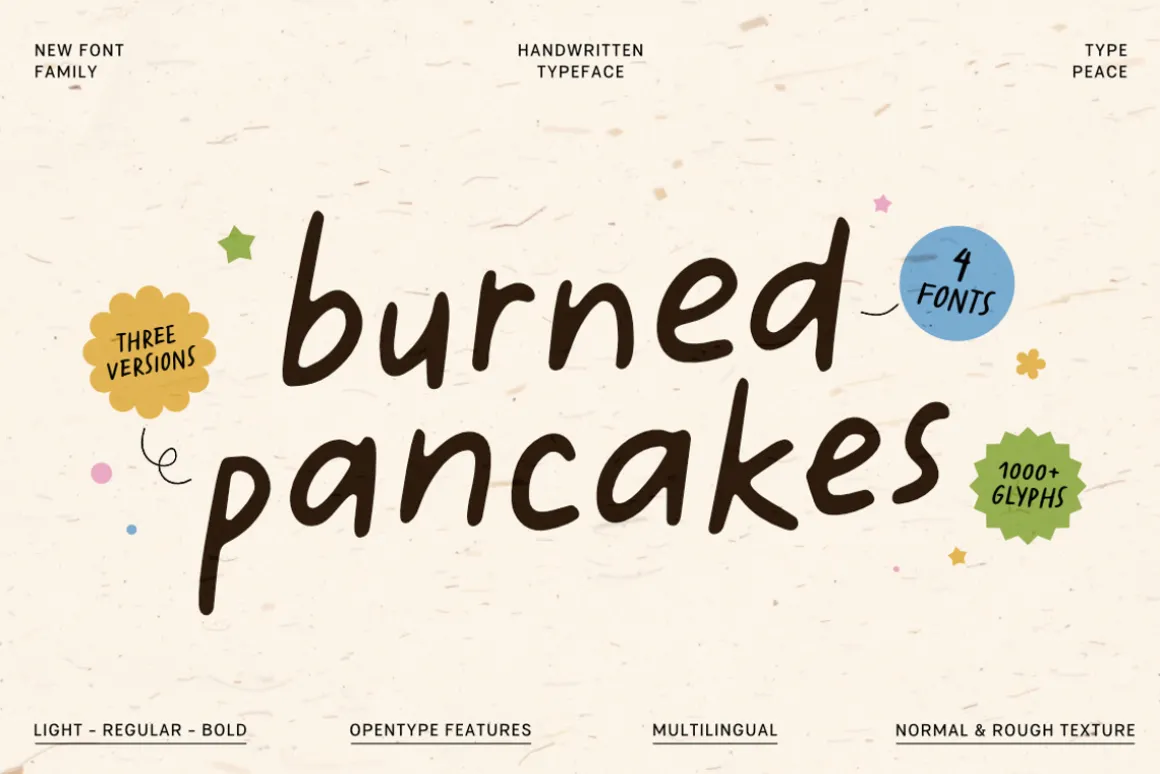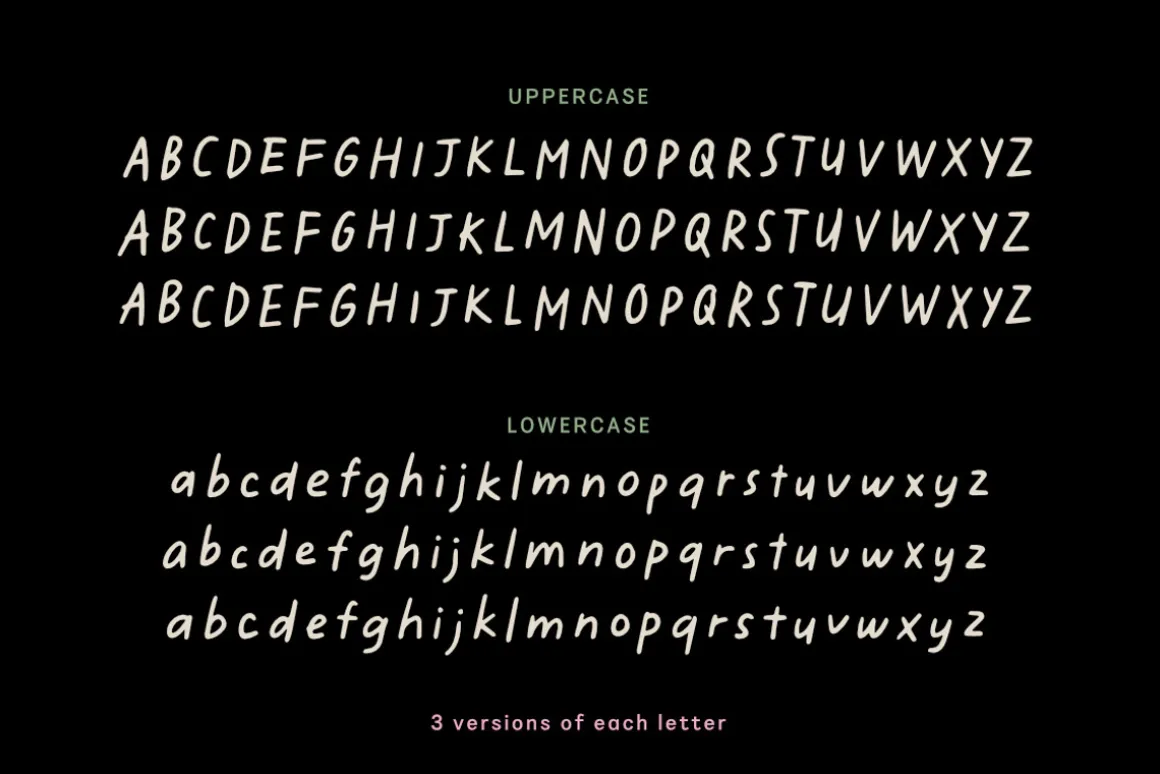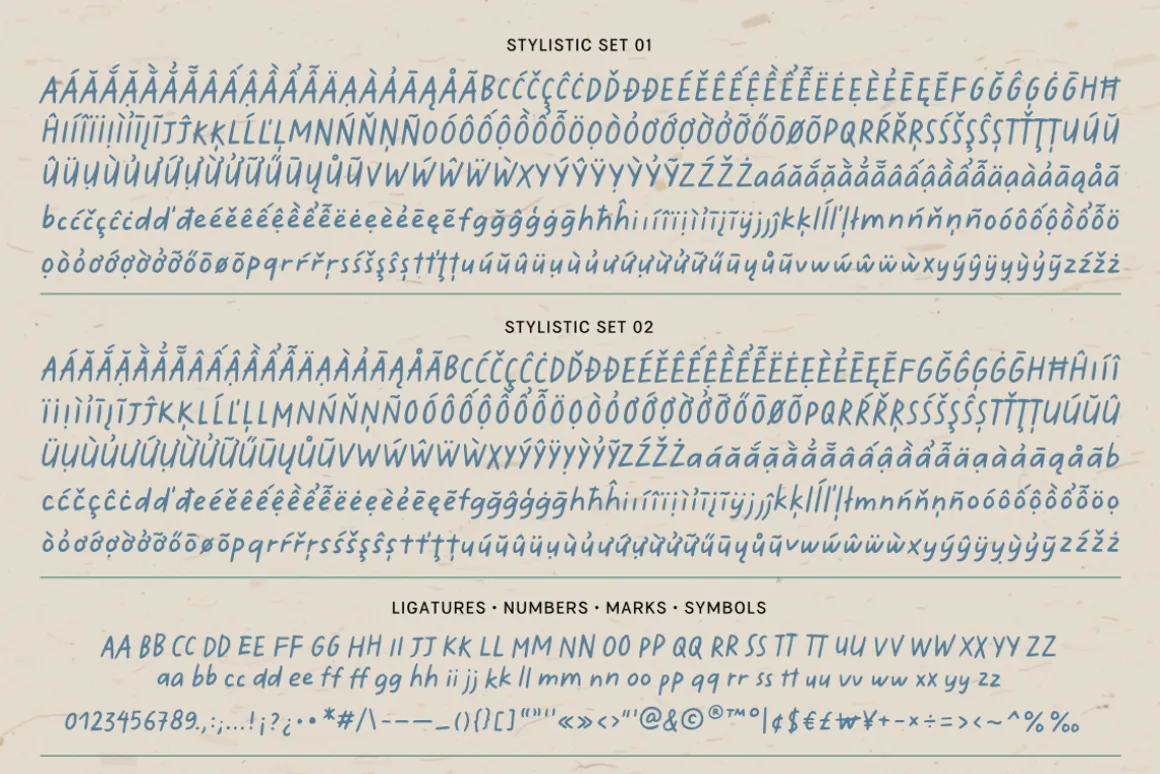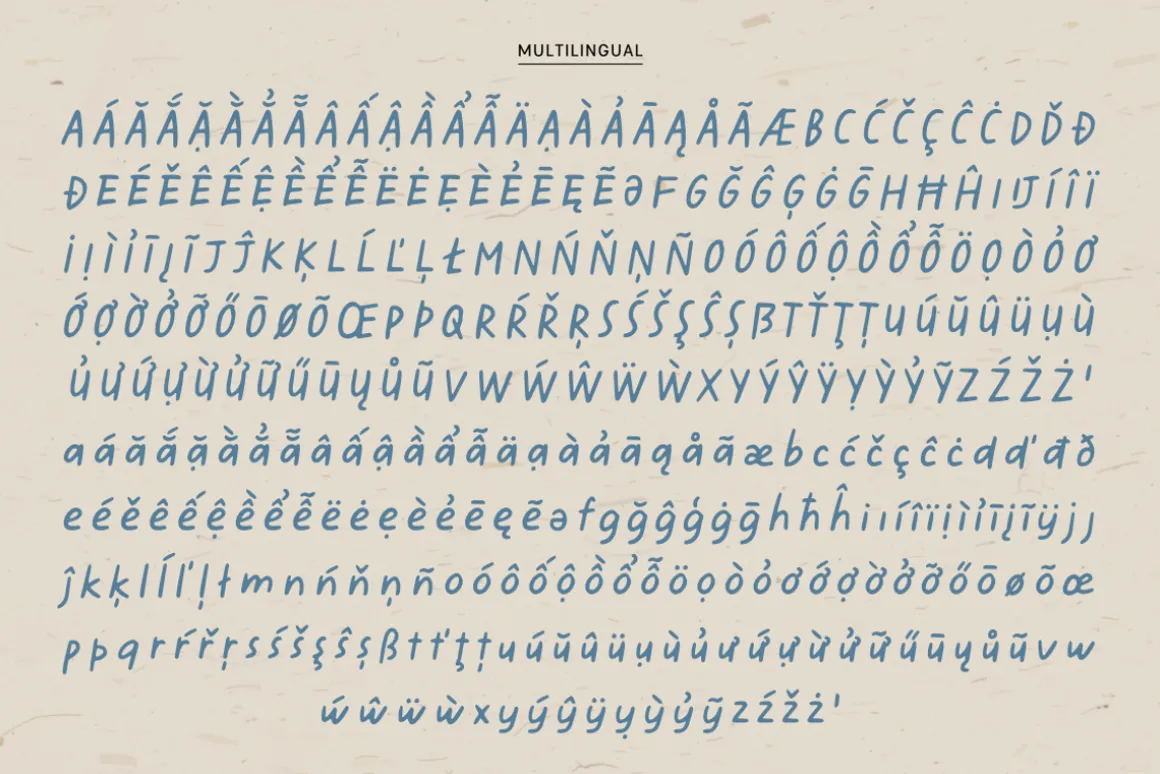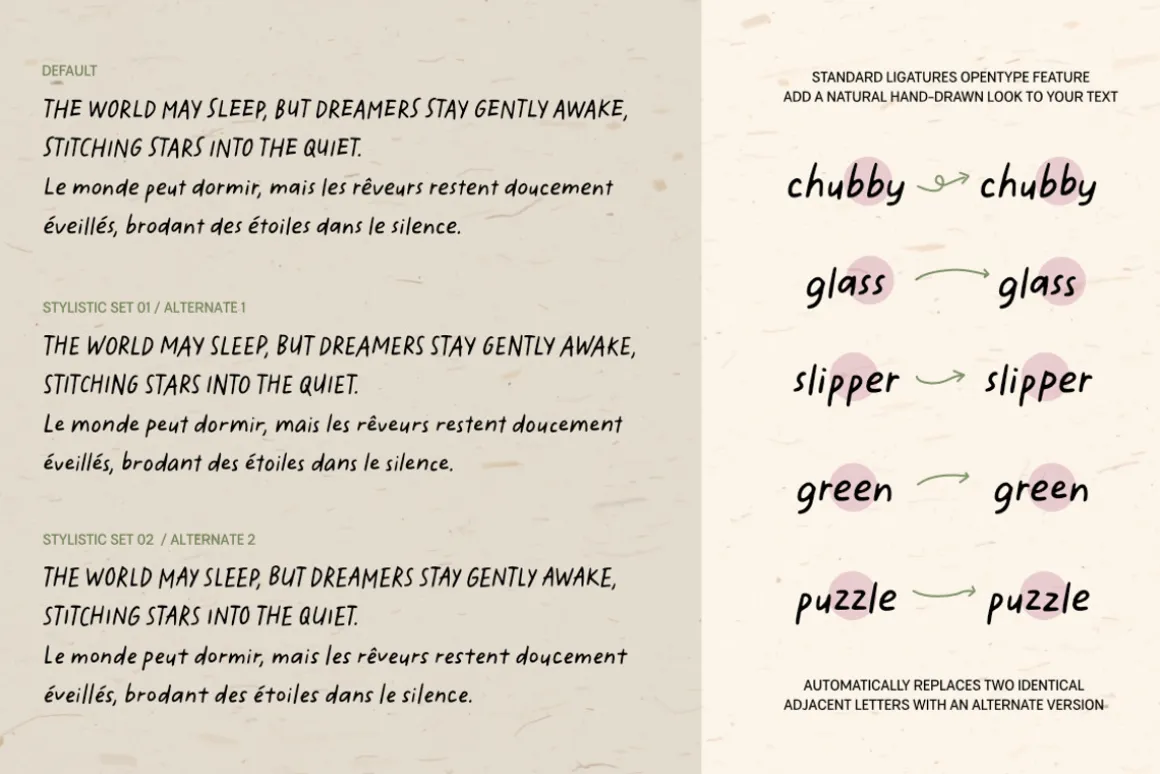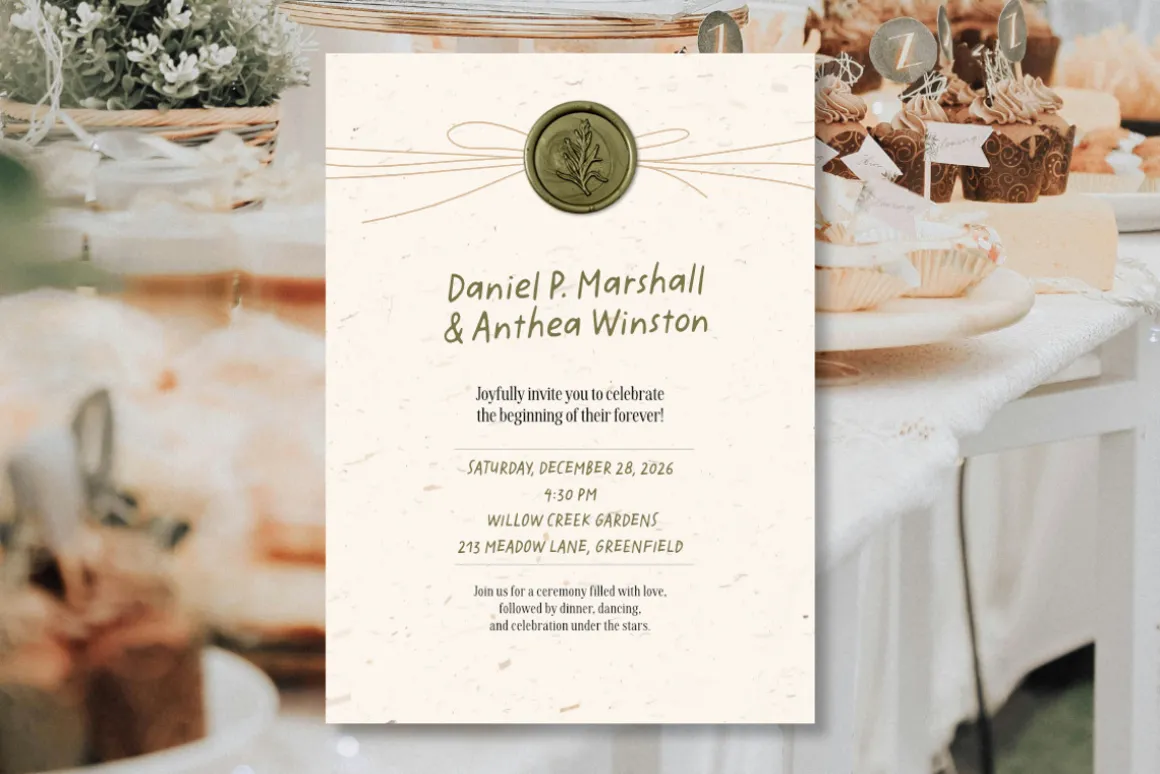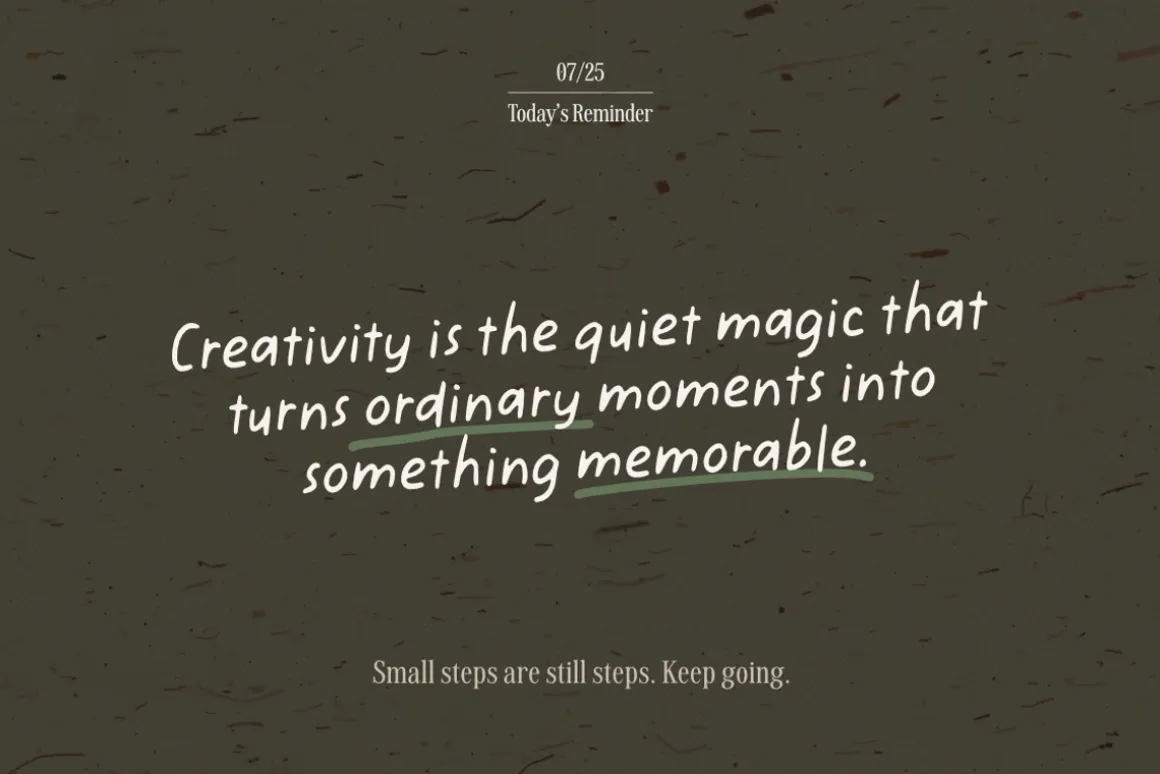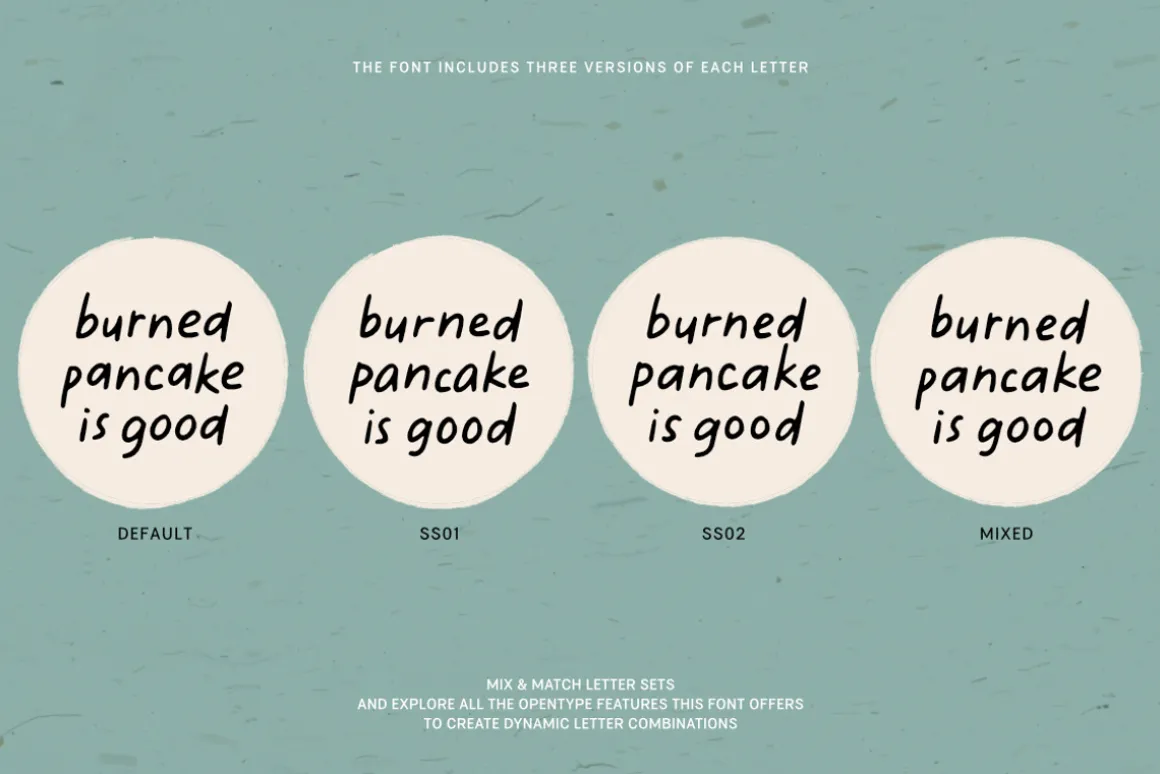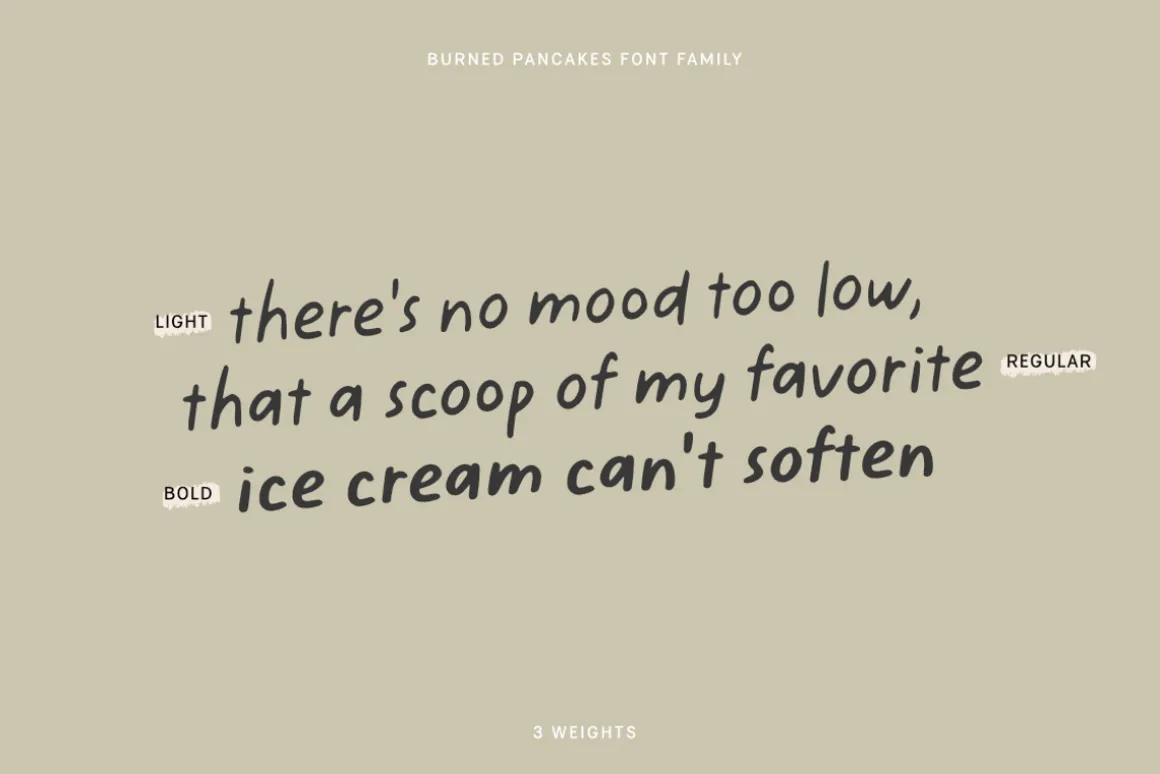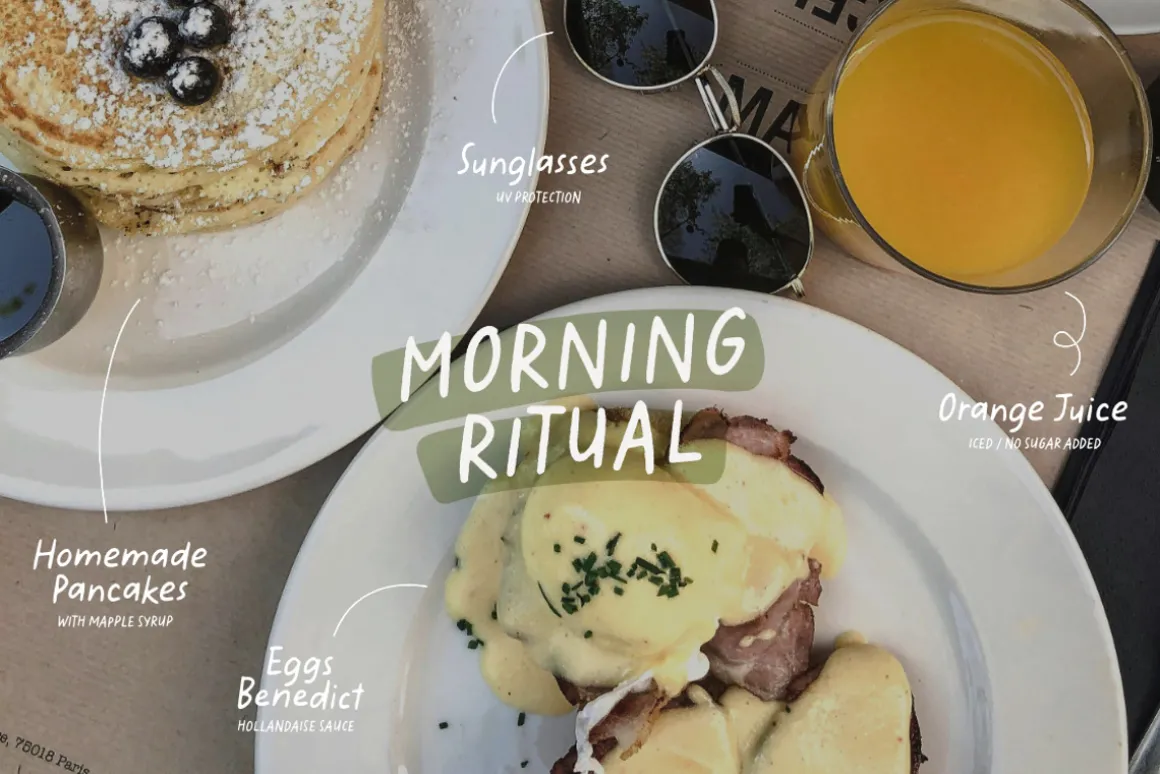
BURNED PANCAKES is a laid-back, handwritten typeface with a loose and playful spirit. Its casual strokes and comfy rhythm bring a natural warmth to your words. With 3 variations of each letter and OpenType features like ligatures, it adds effortless charm and movement to your designs. Complete with multilingual support, BURNED PANCAKES is the perfect choice for projects that call for a friendly, personal, and creative feel.
- 4 fonts: Light, Regular, Bold and Rough
- 3 versions of each letter (uppercase & lowercase)
- Numbers, marks and symbols
- Multilingual support – 1000+ glyphs
- Opentype features: Standard Ligatures, Discretionary Ligatures, Stylistic Sets, Stylistic Alternates
The font automatically replaces two identical adjacent letters with an alternate version to create a more natural handwritten look. If this feature isn’t applied automatically, enable the OTF Standard Ligatures option.
Mix & match letter sets and explore all the OpenType features this font offers to create dynamic letter combinations!